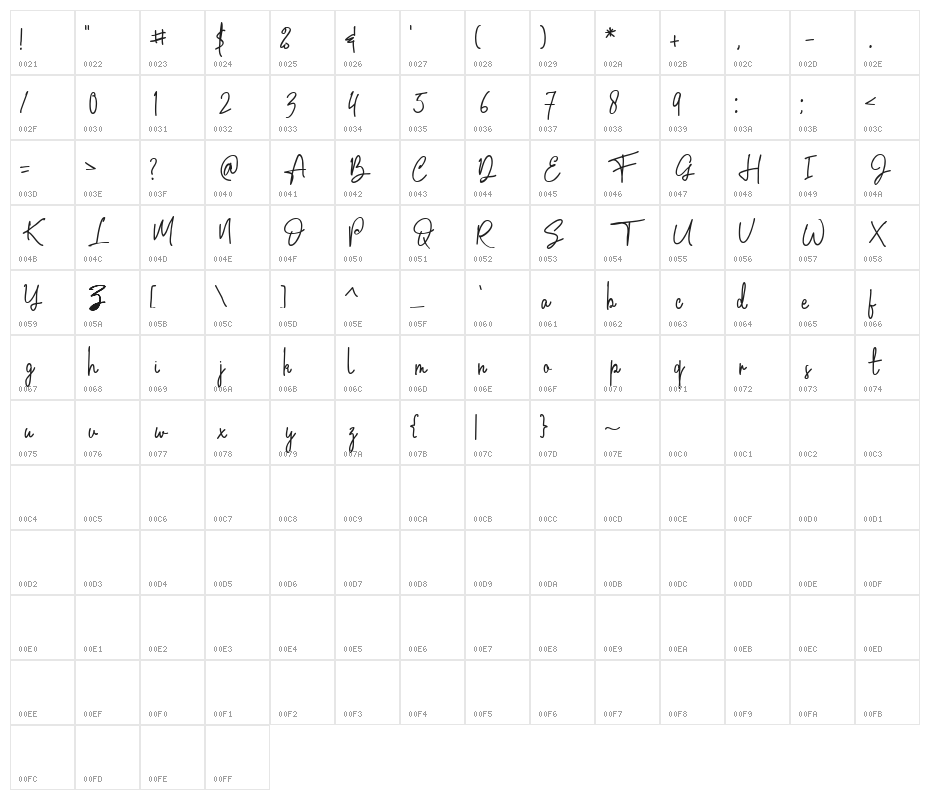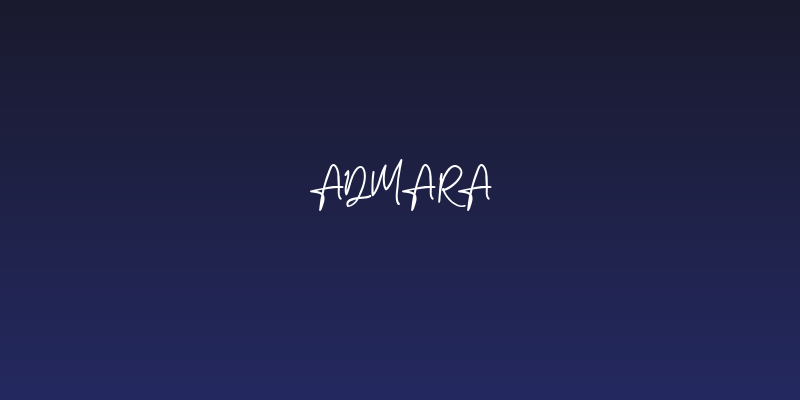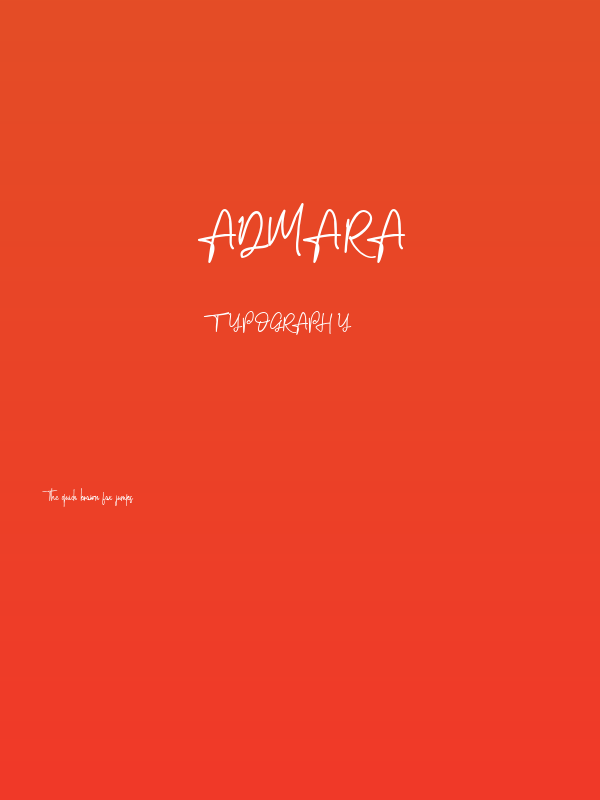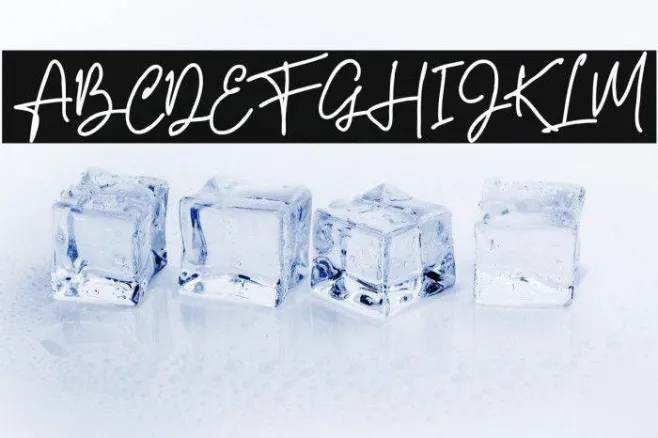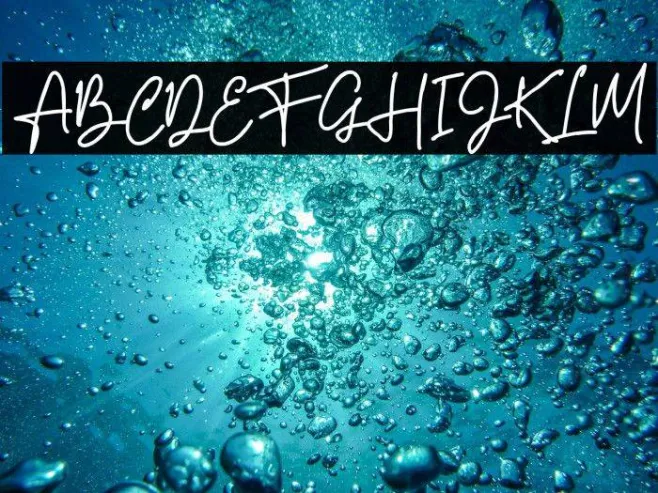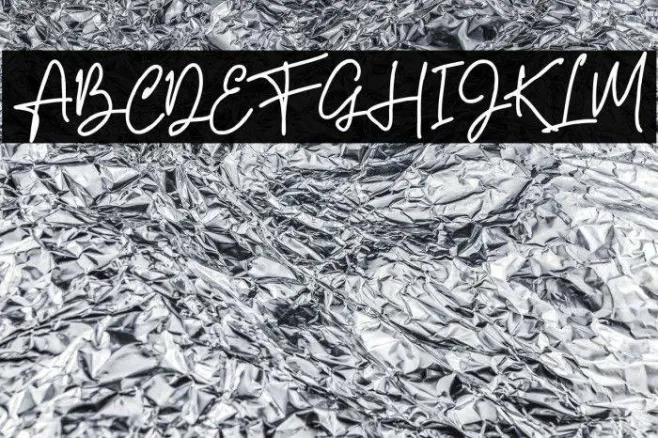
Admara Font
Admara Description
This font exhibits a lively and dynamic handwritten style, characterized by its fluid and cursive letterforms. The uppercase letters are bold and slightly slanted, giving a sense of movement and elegance. The lowercase letters maintain a consistent flow, with some letters featuring loops and swashes that add to the overall aesthetic. The numerals are clear and legible, matching the style of the alphabetic characters. Special characters are creatively integrated, maintaining the font's cohesive look. This font is ideal for projects that require a personal and artistic touch, such as invitations, greeting cards, and creative branding.
| Proposed Projects | Ideal for invitations, greeting cards, creative branding, and artistic projects. |